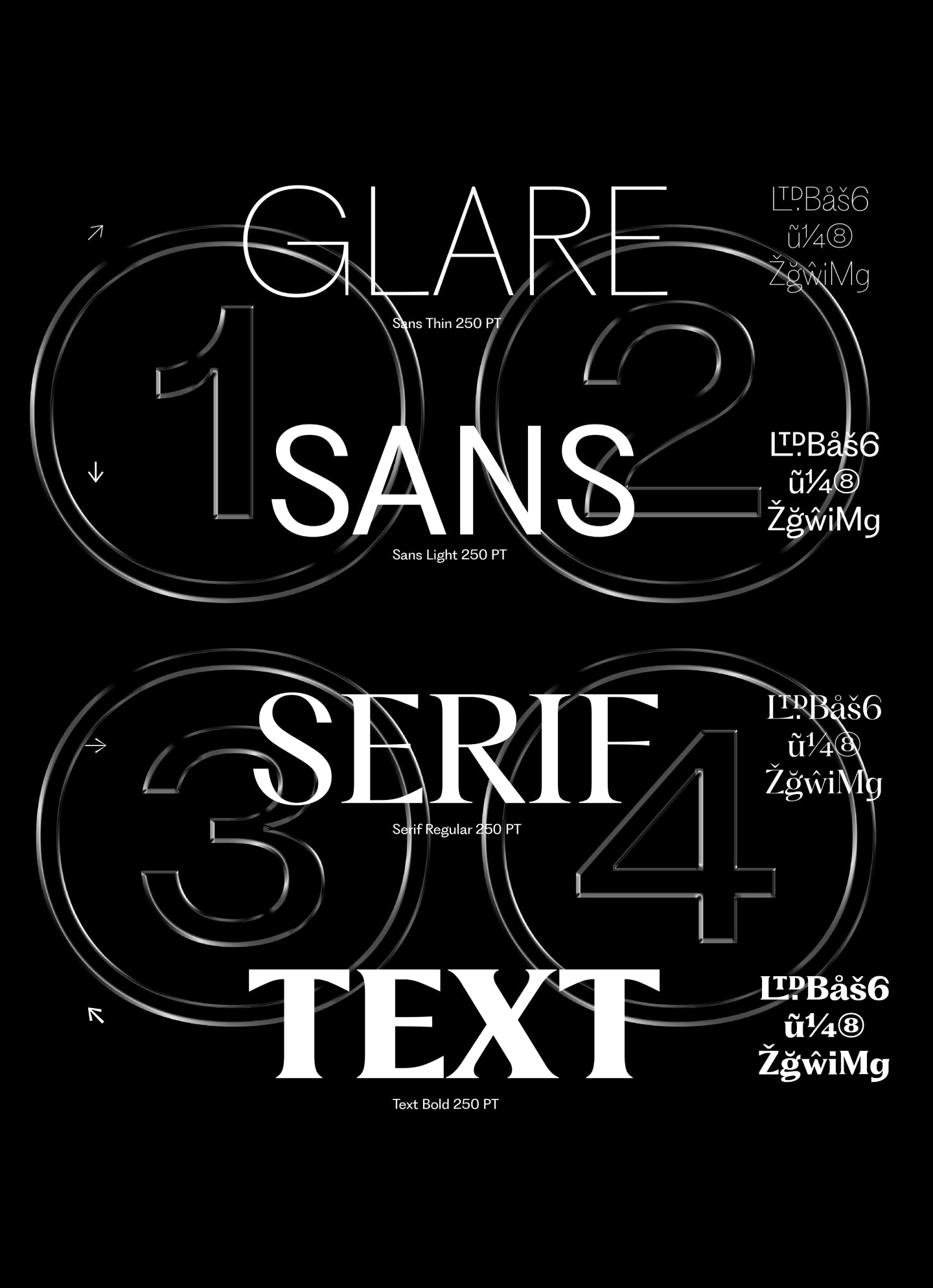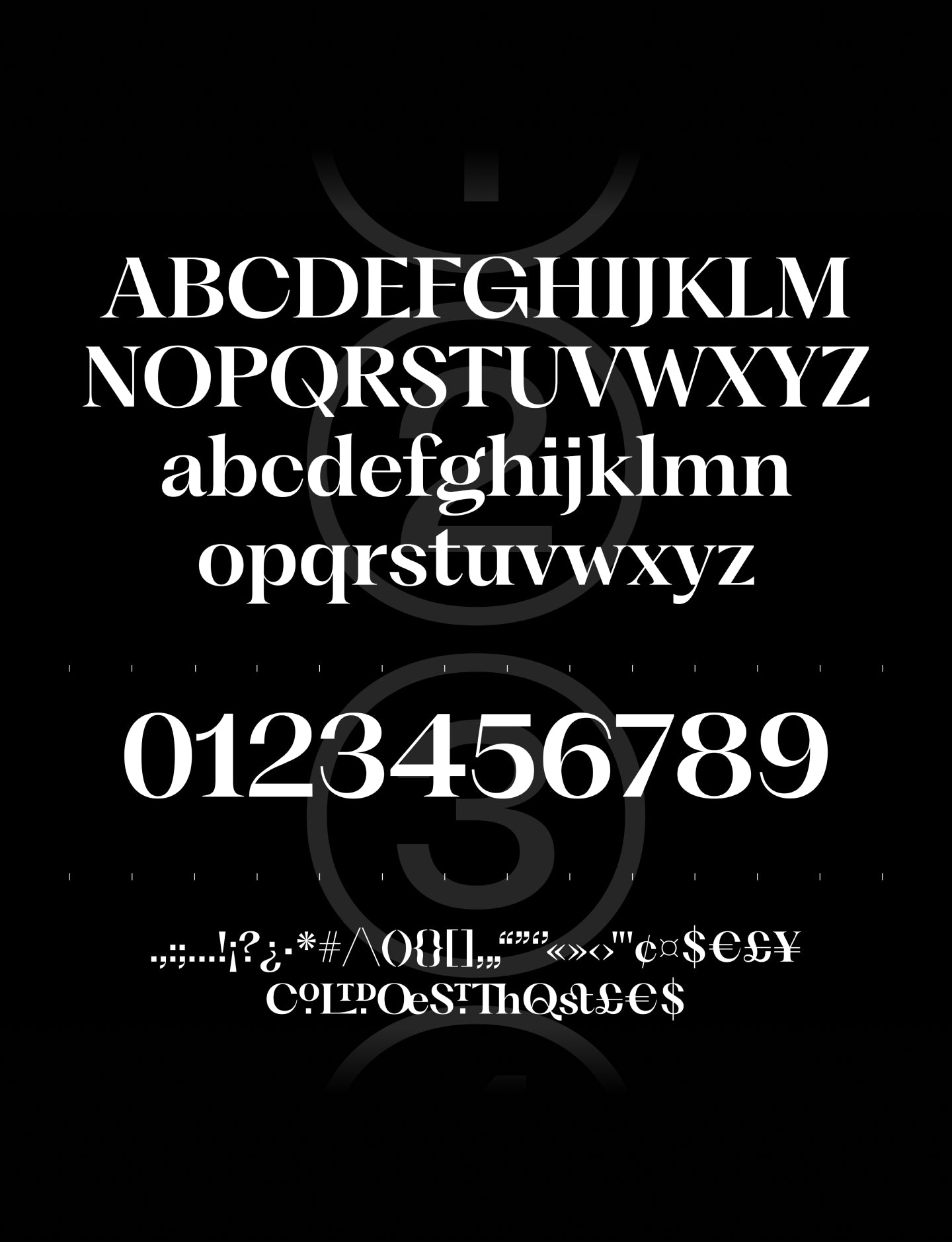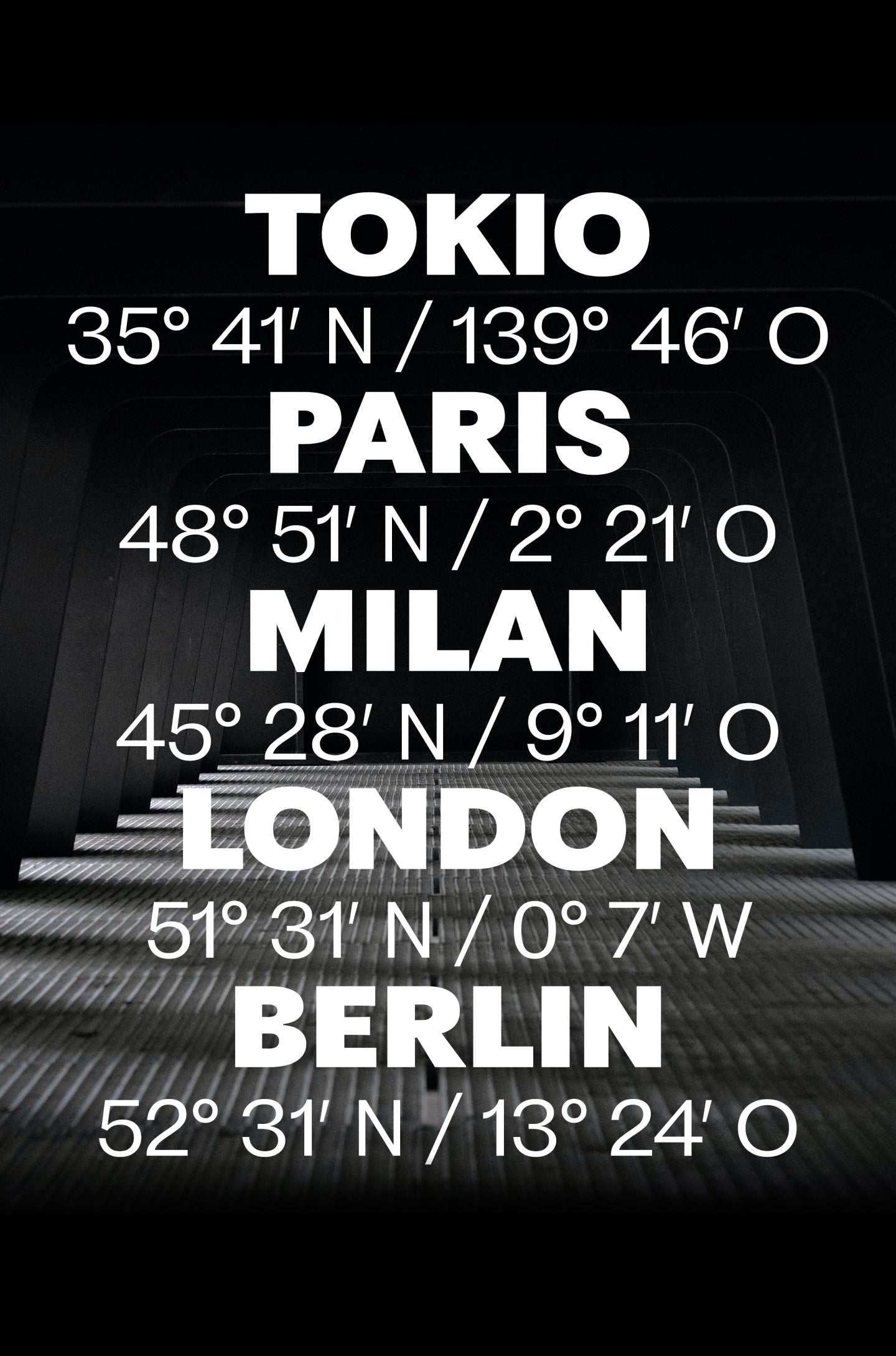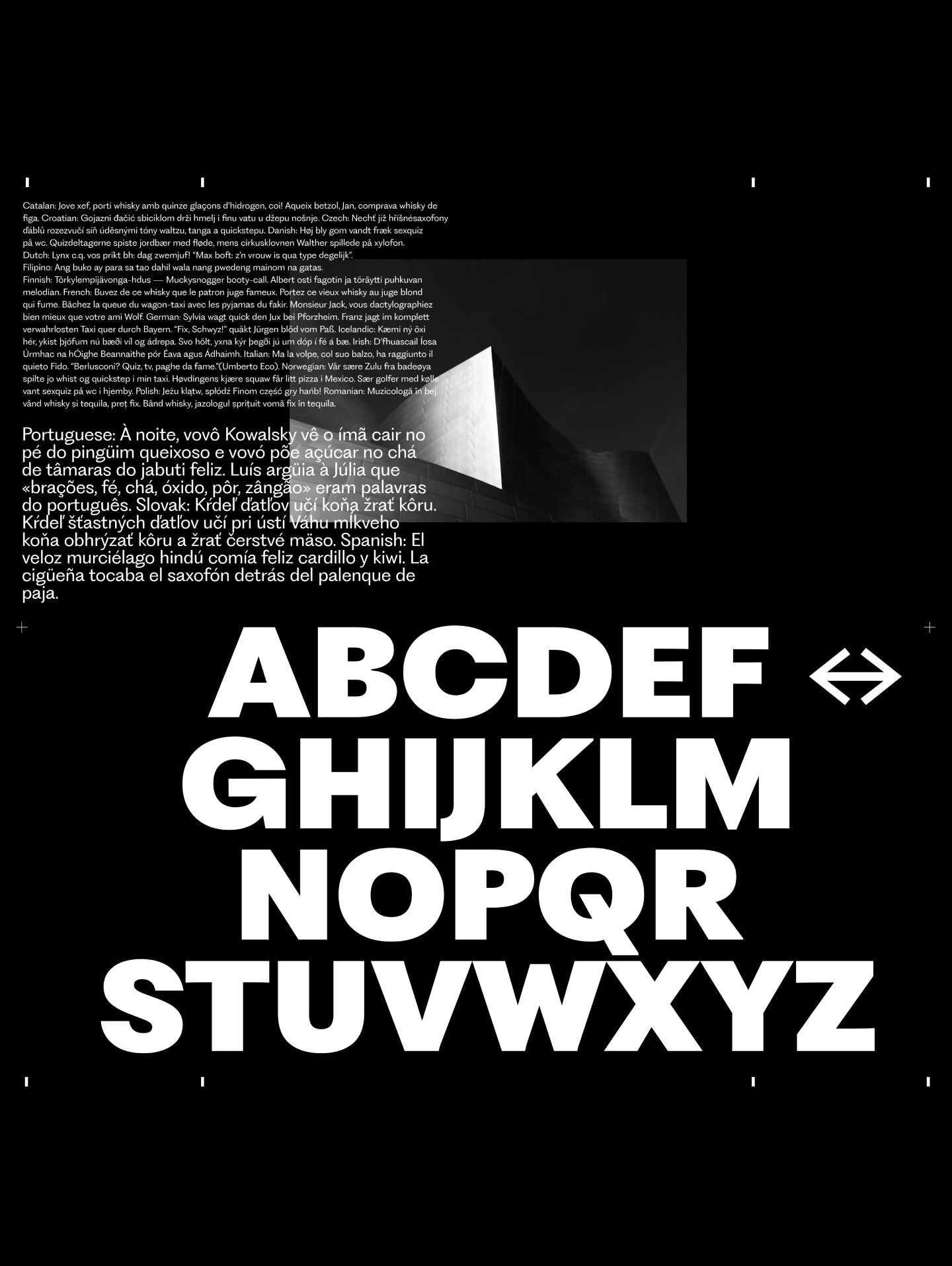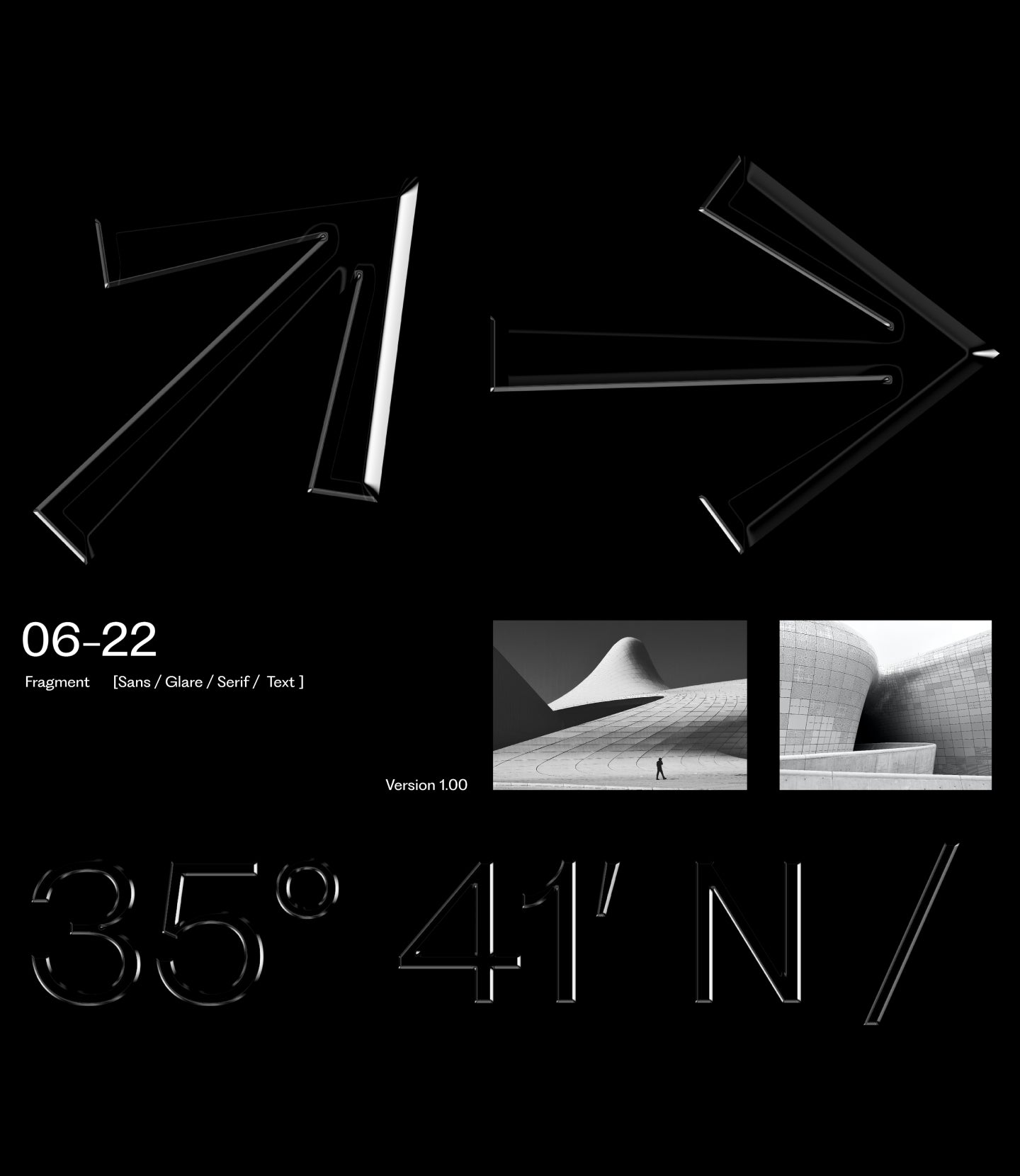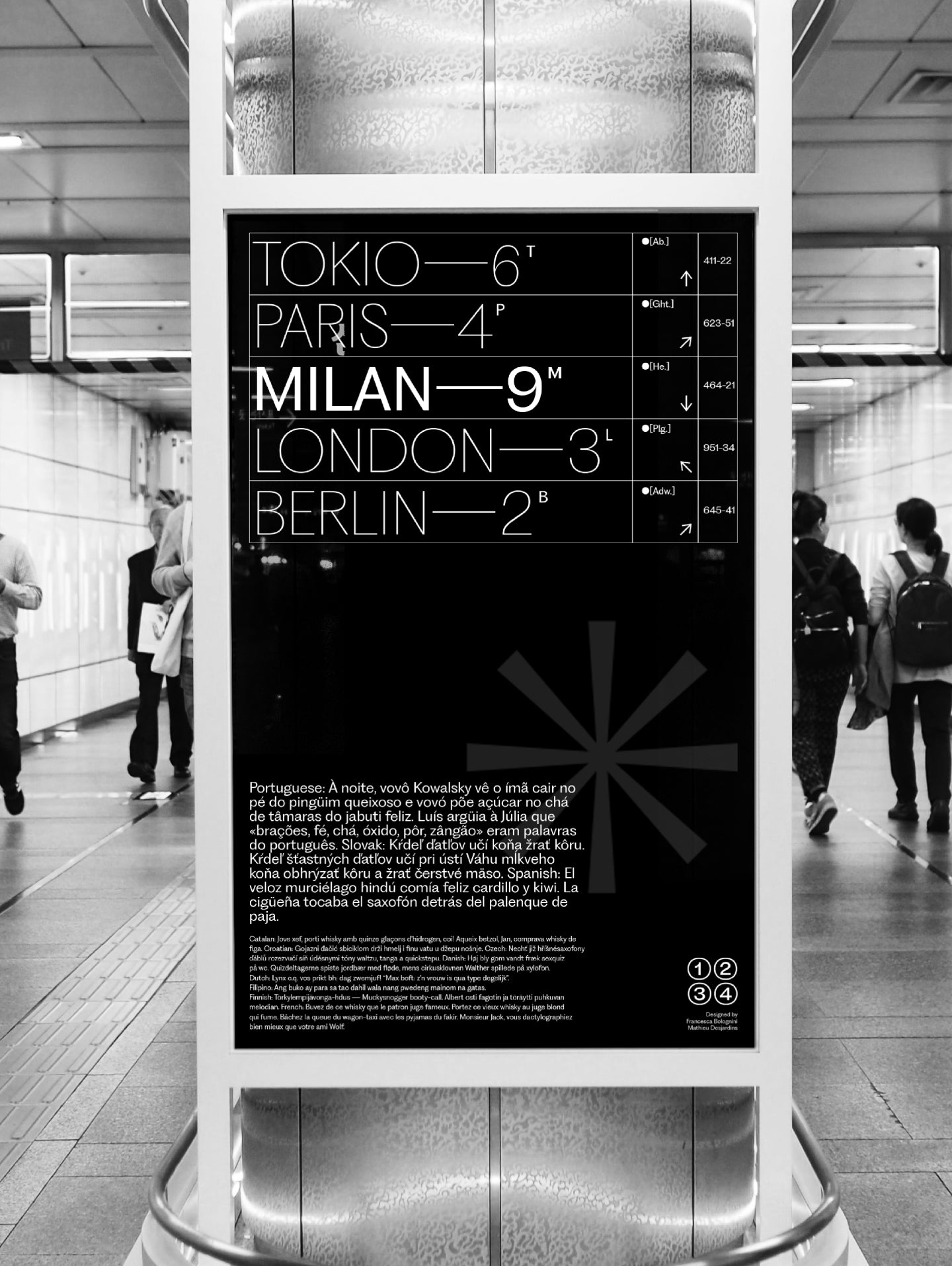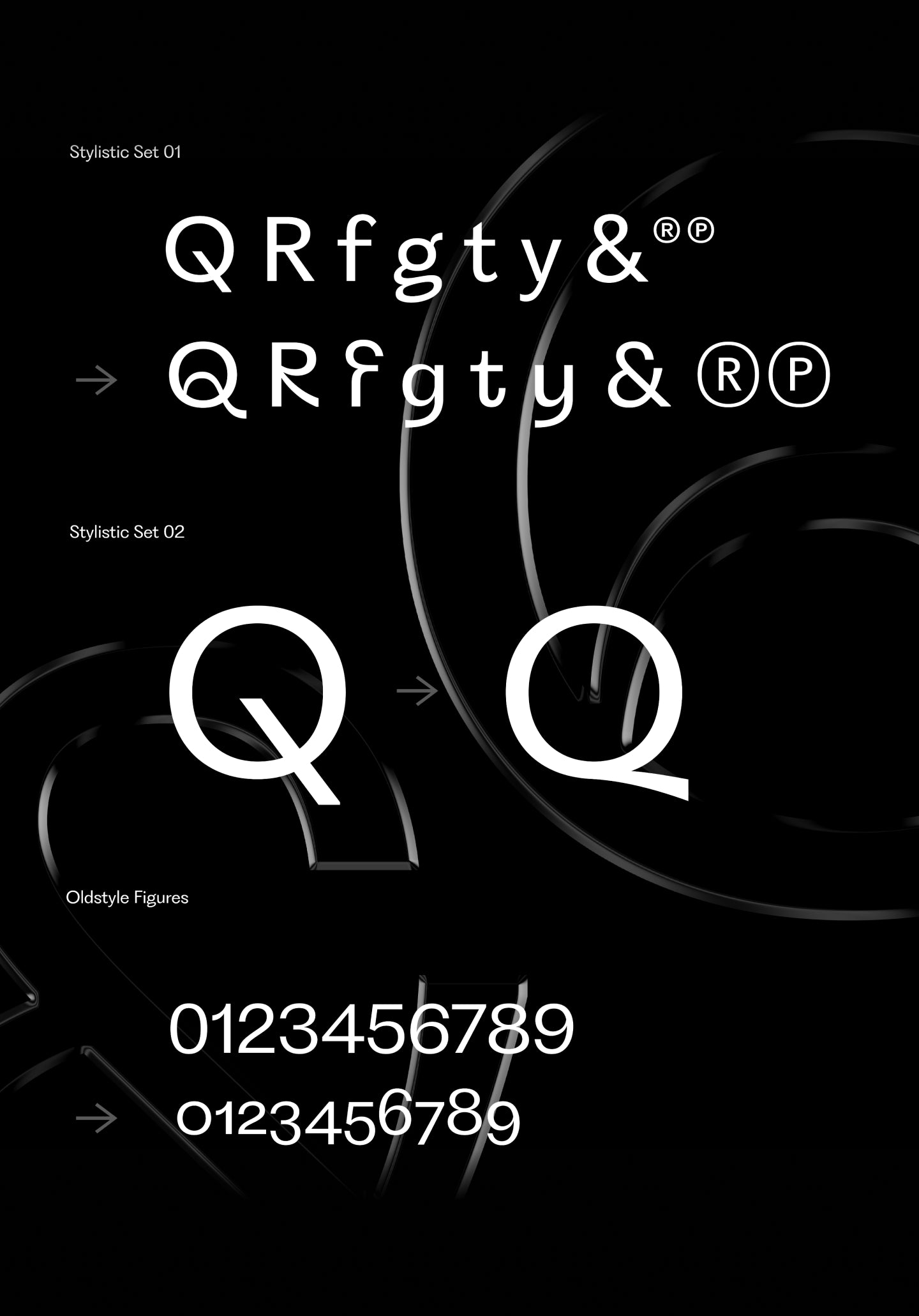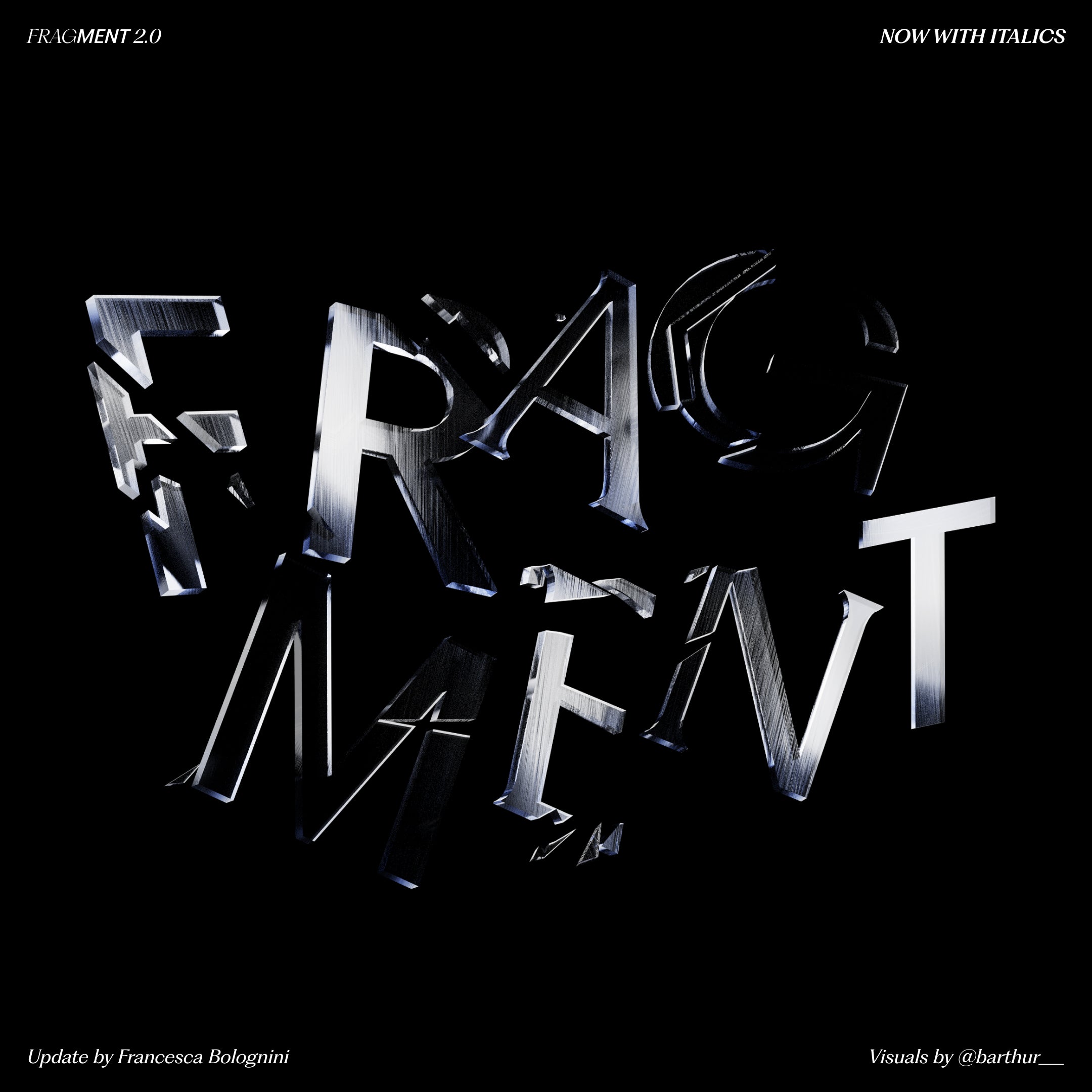
Fragment
Vintage lettering and signs, bridging 19th-century letterforms and contemporary typography.
Fragments of time.
PP Fragment is born from vintage lettering and signs, bridging 19th-century letterforms and contemporary typography. Pangram Pangram’s 35th release uses the latest technology, gracefully oscillating between an elegant, highly contrasted Serif face, a revival mid-serif called Glare, and a strong Sans, each with distinct features yet perfectly complementary.
It comes in 4 preset cuts, Sans, Serif, Glare, and Text, each with unique personalities and quirks. Each weight counts 581 glyphs with plenty of alternate symbols to achieve the best-desired result for your next design.
Its power and versatility also comes from its 32 very distinct and unique weights plus italics! These weights were carefully crafted and cut for maximum breath of ability, PP Fragment doesn’t disappoint and will surely be one of your best tools in your next design endeavour.
4 Cuts x 18 Styles with 581 Glyphs each
Including Italic and Text Cuts